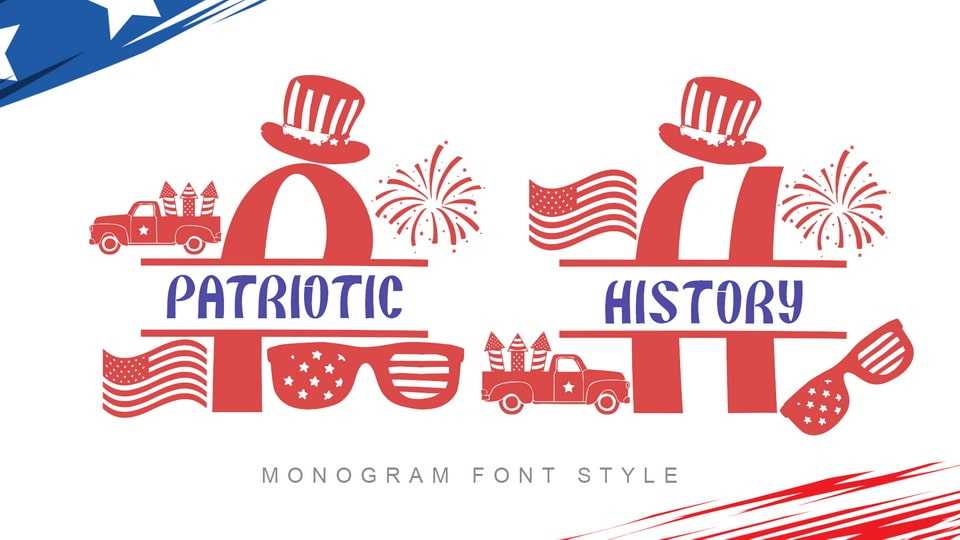
Download Patriotic History font, an elegant and unique monogram typeface. It is very suitable for 4th of July, patriotic, summer, banner, branding, logo, sticker, print and others.